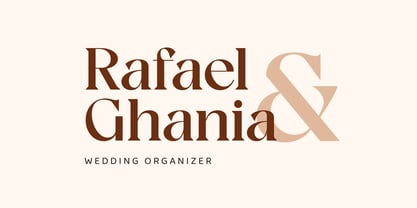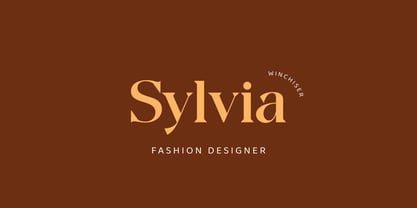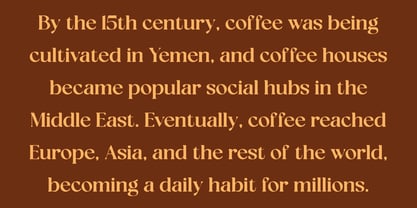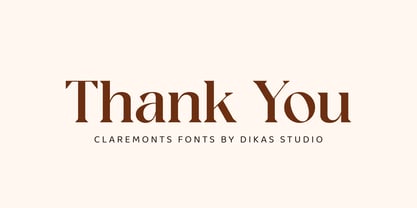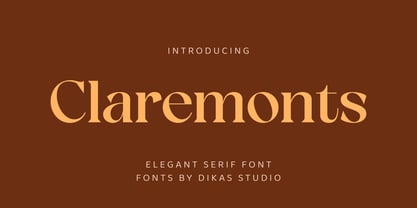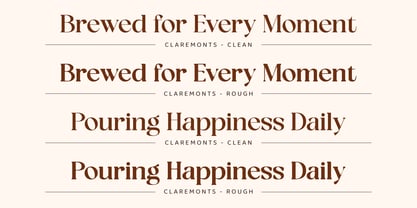
DKS Claremonts
by Dikas Studio
The DKS Claremonts Font Family was designed by Andika Setiawan and published by Dikas Studio. DKS Claremonts contains 2 styles and family package options.
Claremonts – Bold Elegant Serif Font
Claremonts is a bold serif font with elegant contrast details, designed to bring sophistication and impact to any project. This elegant serif font works perfectly for headlines, logos, fashion branding, and editorial layouts. The set includes one weight, along with a rough style and alternate characters, making it a versatile bold serif typeface for creative flexibility. With its strong contrast shapes, Claremonts is an ideal elegant serif font for posters, book covers, digital interfaces, and modern branding.